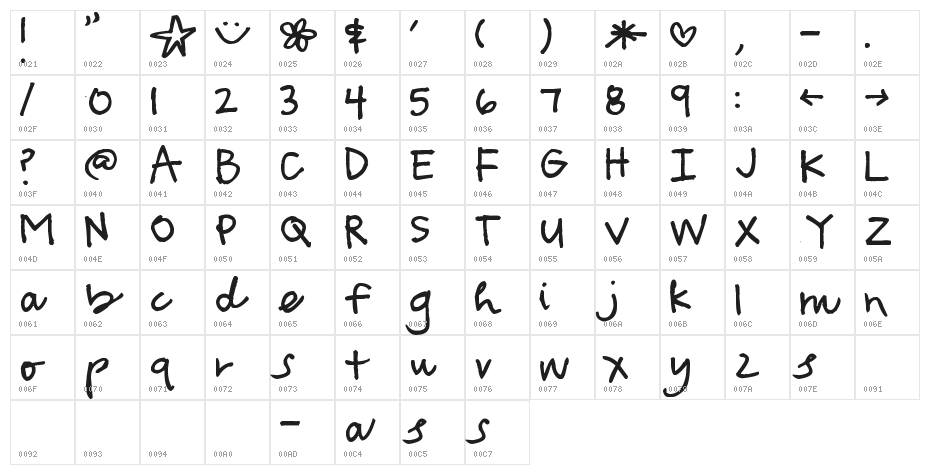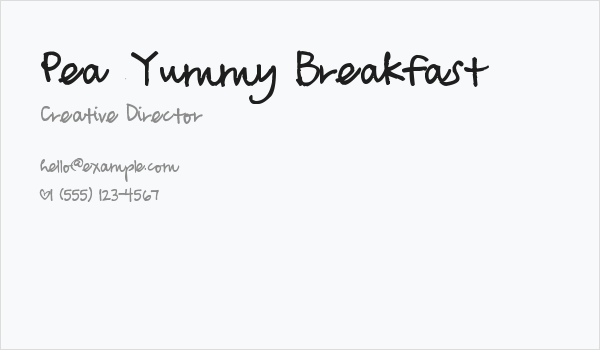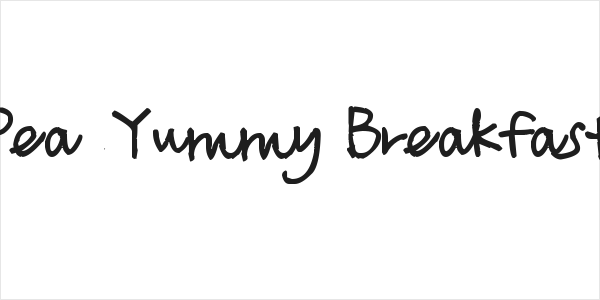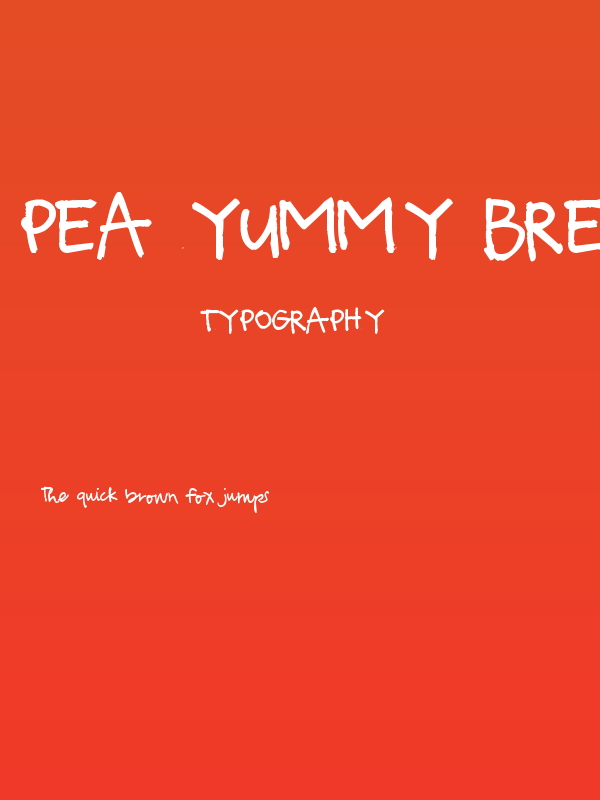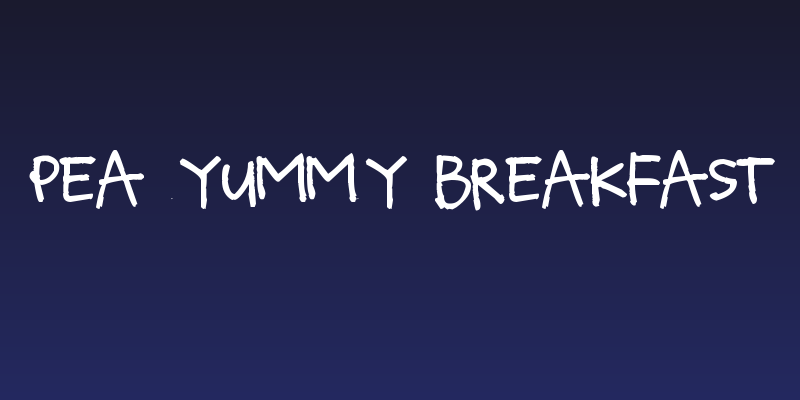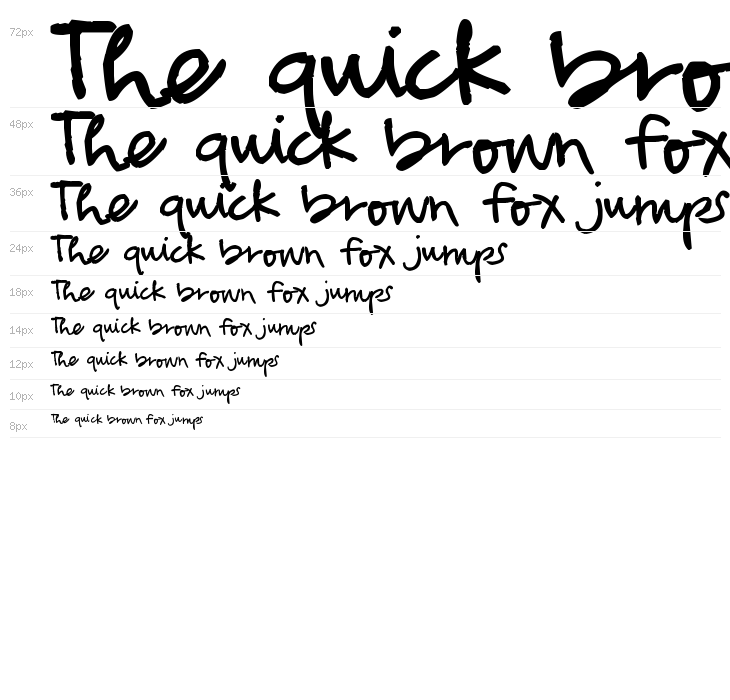
Pea Yummy Breakfast Font
Pea Yummy Breakfast Description
This playful and informal font features a handwritten style with a casual, friendly appearance. The letters are slightly irregular, adding to the charm and authenticity of a hand-drawn look. The strokes are bold and consistent, giving the font a strong presence while maintaining a whimsical feel. The characters are well-spaced, ensuring readability, and the overall design is approachable and fun. The inclusion of unique special characters like stars and smiley faces enhances its playful nature, making it suitable for creative and lighthearted projects.
| Proposed Projects | Ideal for children's books, greeting cards, playful branding, and casual invitations. |